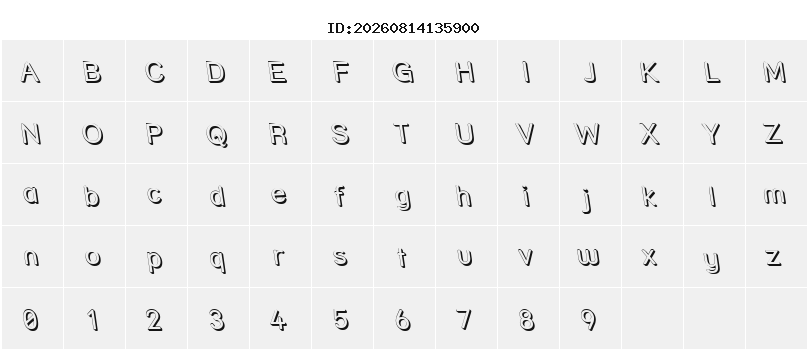
• Font Name: Street Shadow - Rev
• Font ID: Street Shadow Reverse Italic
• Full Font Name: Street Shadow - Rev
• PostScript Name: StreetShadow-Rev
About Street Shadow - Rev.ttf
Street Shadow - Rev.ttf is a modern, elegant sans-serif font designed for ultimate readability and visual harmony. Perfect for branding, headlines, web design, and print materials.